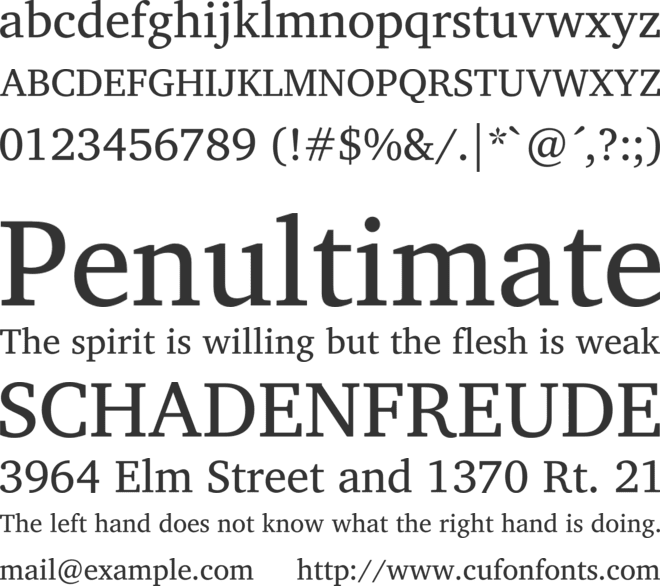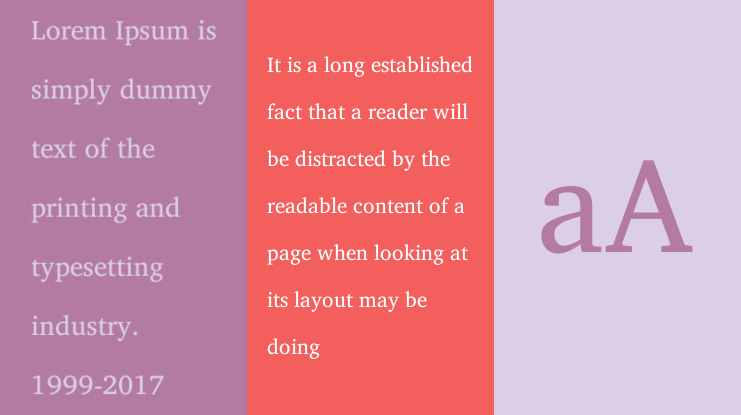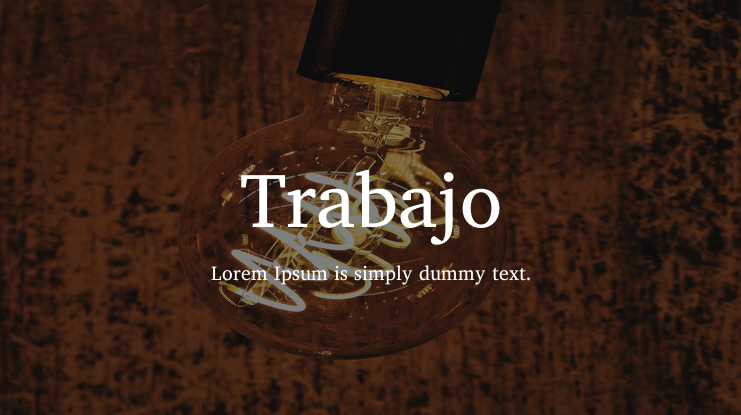
Trabajo Font
Designed for use with the Shavian alphabet, a phonemic spelling reform proposal for English, but also supports extended Latin, and basic Cyrillic. "Trabajo" (pronounced [tɾaˈβaxo] if you're Spanish or [tɹəˈbɑːhoʊ] if you're English) is Spanish for "I work".
Edit: Trabajo has become a Serif font as of version 2.0, for improved appearance. The result is I had to remove some language support.
Most characters from the Open Font Charis SIL, by SIL international
Shavian characters by Phillip Driscoll, from the public domain font Shaw Roman No. 1
Font compiled and generated by Linus/Trabajar